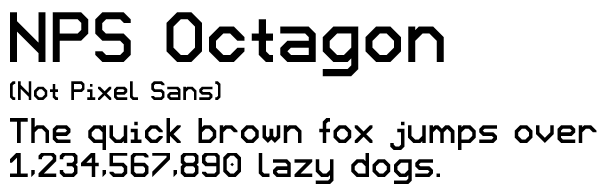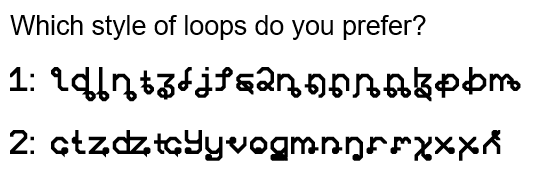
NPS Octagon is like Pixel Sans, but not pixel.
Now supports all of Latin in Unicode, including Latin Extended-F and -G (moved to the PUA), plus some extra obsolete phonetic characters!
Also, I've been a little inconsistent with loops in characters like ȡȴȵȶɕɬʑ. Do you prefer the larger or smaller loops?
I prefer #2 the best…